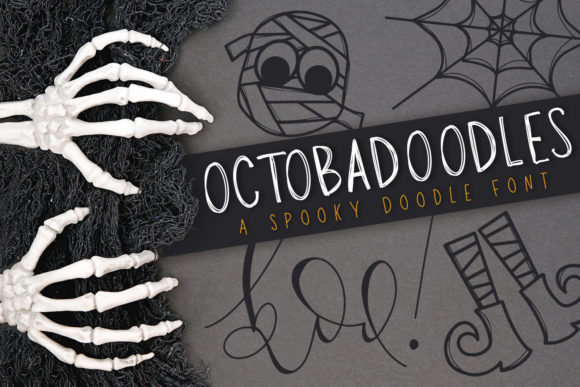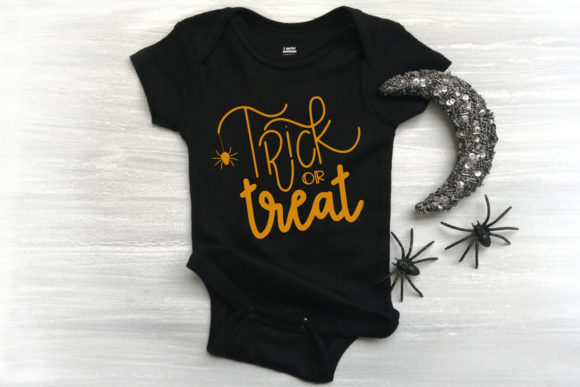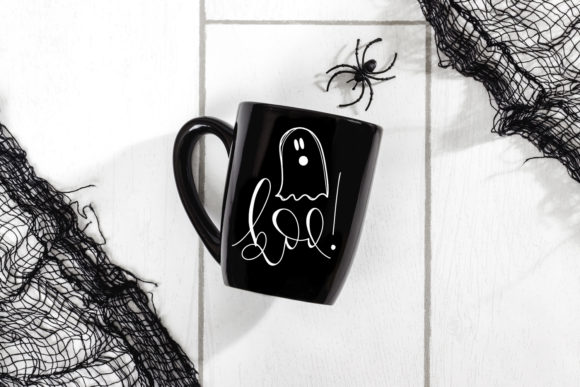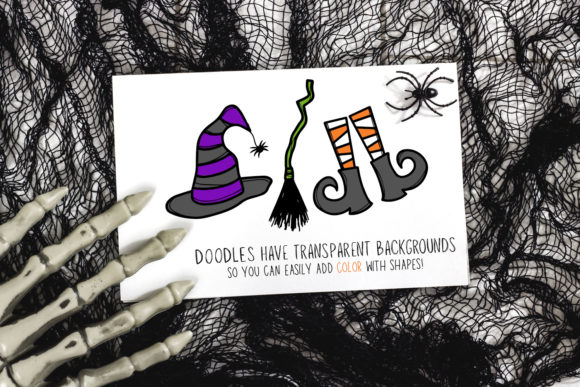
OctobaDoodles Font
About OctobaDoodles Font
Absolutely! OctobaDoodles is an incredibly unique, spooky, and quirky dingbats font that is perfect for Halloween-themed designs. It adds a touch of whimsy and a spooky vibe to your creative projects. Here are some ways you can use the OctobaDoodles font to make your Halloween designs stand out:
1. Party Invitations: Create eye-catching and fun Halloween party invitations using the OctobaDoodles font. Use the spooky and quirky doodles as decorative elements, borders, or dividers to set the tone for your Halloween celebration. Your invitations will instantly grab attention and create excitement among your guests.
2. Trick-or-Treat Bags: Personalize trick-or-treat bags with the OctobaDoodles font. Use the spooky and quirky doodles to add fun and unique designs to the bags. Whether you’re creating custom labels or stenciling the doodles directly onto the bags, the OctobaDoodles font will make them stand out and delight the little trick-or-treaters.
3. Halloween Decorations: Enhance your Halloween decorations with the OctobaDoodles font. Use the spooky and quirky doodles to create signs, banners, or garlands to decorate your home or party venue. The font’s unique style will add a playful and eerie atmosphere to your Halloween decor.
4. Digital Content: Make your digital content more engaging and spooky with the OctobaDoodles font. Use the doodles as icons, borders, or embellishments in your social media graphics, blog posts, or website designs. The font’s unique and quirky elements will add personality and intrigue to your online presence during the Halloween season.
5. Halloween Crafts: Incorporate the OctobaDoodles font into your Halloween-themed crafts. Use the doodles as stencils or templates for pumpkin carving, painting, or paper crafts. You can also use the doodles as inspiration for DIY Halloween costumes or decorations. The font’s spooky and quirky elements will make your crafts stand out.
6. Party Games and Activities: Create Halloween-themed games and activities using the OctobaDoodles font. Use the doodles to create bingo cards, scavenger hunt lists, or coloring sheets. The font’s unique style will add a touch of whimsy and fun to your Halloween party entertainment.
Remember to unleash your creativity and experiment with different combinations of the OctobaDoodles font, colors, and layouts to create unique and visually captivating Halloween designs. Let the font’s spooky and quirky elements inspire you to create memorable and stand-out Halloween creations!